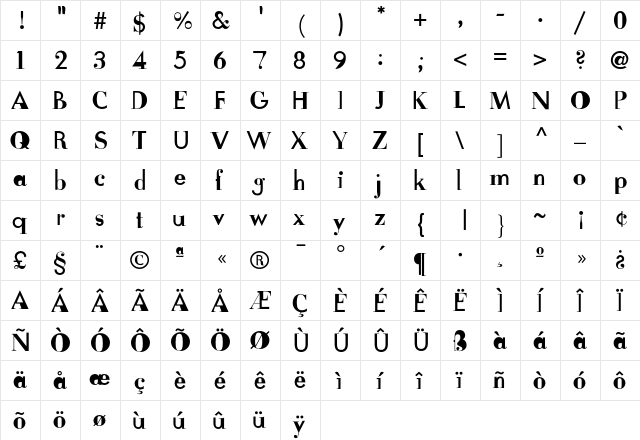
FudoniTwo Regular
Design Context for FudoniTwo Typeface
FudoniTwo offers clean, dependable letterforms without strong stylistic allegiance, making it a practical choice for designers who need flexibility.